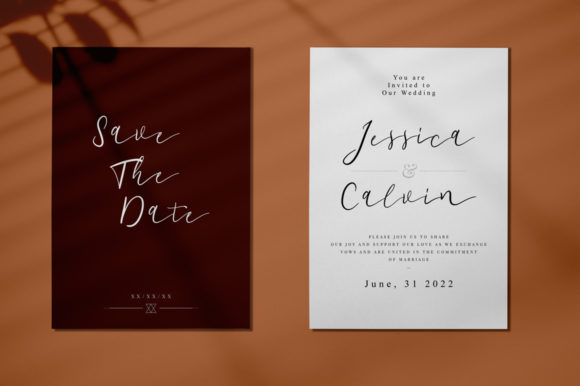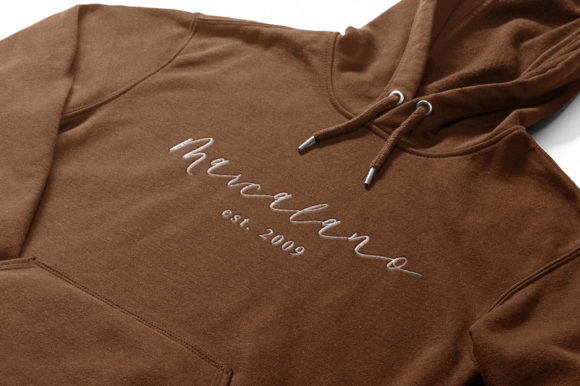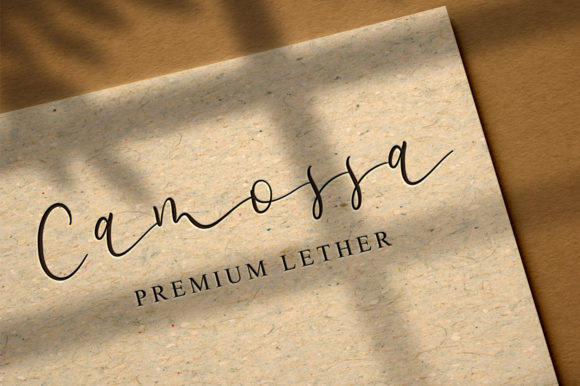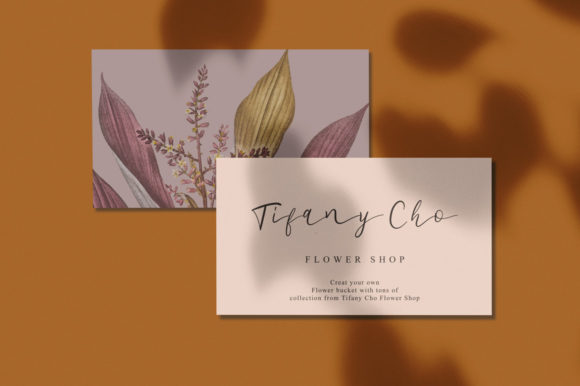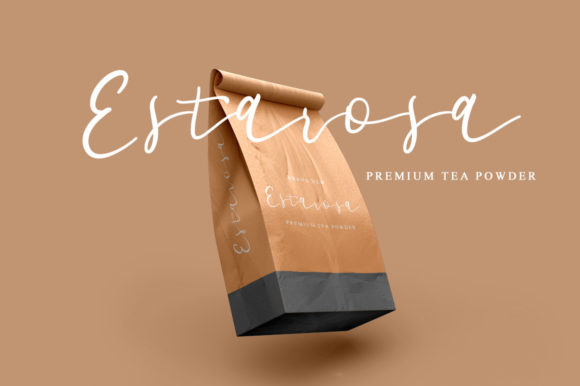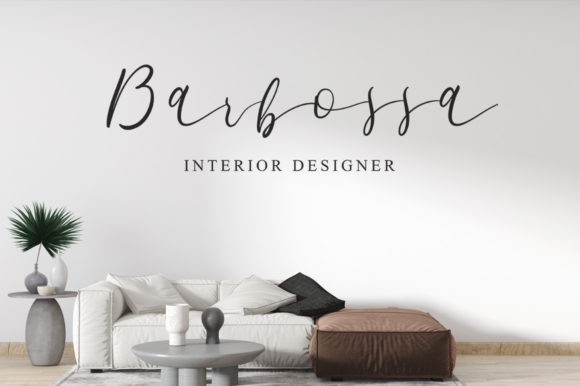
Hello Cello Font: A Delicate and Elegant Handwritten Font
Are you a designer or crafter looking for a font that exudes elegance and sophistication? Look no further than the Hello Cello Font. This beautiful handwritten font is a masterpiece of typography, with delicate and well-balanced letters that are sure to add a touch of class to any project.
What Makes Hello Cello Font So Special?
Hello Cello Font is a unique and exquisite font that stands out from the crowd. Its distinct letters are carefully crafted to create a sense of harmony and balance, making it perfect for a wide range of design applications. Whether you’re working on a logo, a wedding invitation, or a craft project, Hello Cello Font is sure to impress.
One of the best things about Hello Cello Font is that it’s PUA (Private Use Area) encoded. This means that you can access all of the glyphs and swashes with ease, giving you complete creative control over your design. With PUA encoding, you can easily insert special characters, ligatures, and other unique elements that will take your design to the next level.
Hello Cello Font is a dream come true for designers and crafters. Its elegant and refined appearance makes it perfect for a wide range of projects, from stationery and invitations to logos and branding materials. Whether you’re a professional designer or a crafty hobbyist, Hello Cello Font is sure to become a favorite in your collection.
Use Hello Cello Font for:
- Craft projects, such as scrapbooking and card making
- Digital graphics, such as social media graphics and blog headers
Tips for Using Hello Cello Font
To get the most out of Hello Cello Font, here are a few tips to keep in mind:
- Use it with a subtle background texture or pattern to add depth and interest
- Pair it with a bold or modern font for a striking contrast
- Experiment with different colors and textures to find the perfect look for your project
- Don’t be afraid to get creative and try out new and unusual design ideas
Hello Cello Font is a truly special font that is sure to delight designers and crafters alike. Its delicate and elegant appearance, combined with its PUA encoding and ease of use, make it a must-have for anyone looking to add a touch of sophistication to their designs. Whether you’re working on a professional project or a personal craft, Hello Cello Font is sure to inspire and delight.